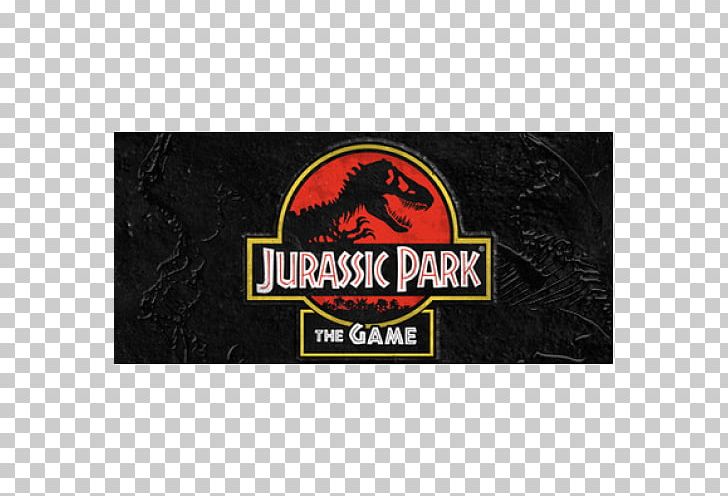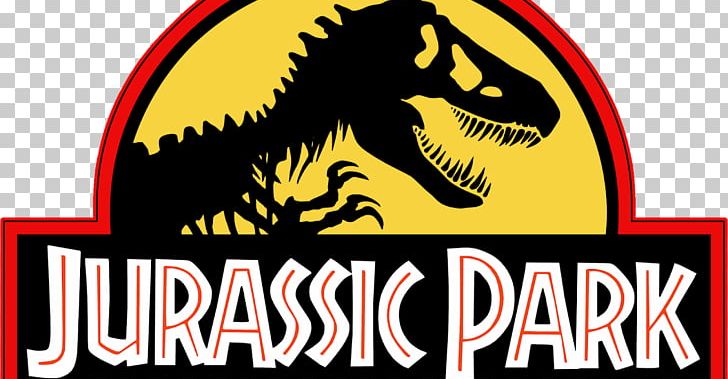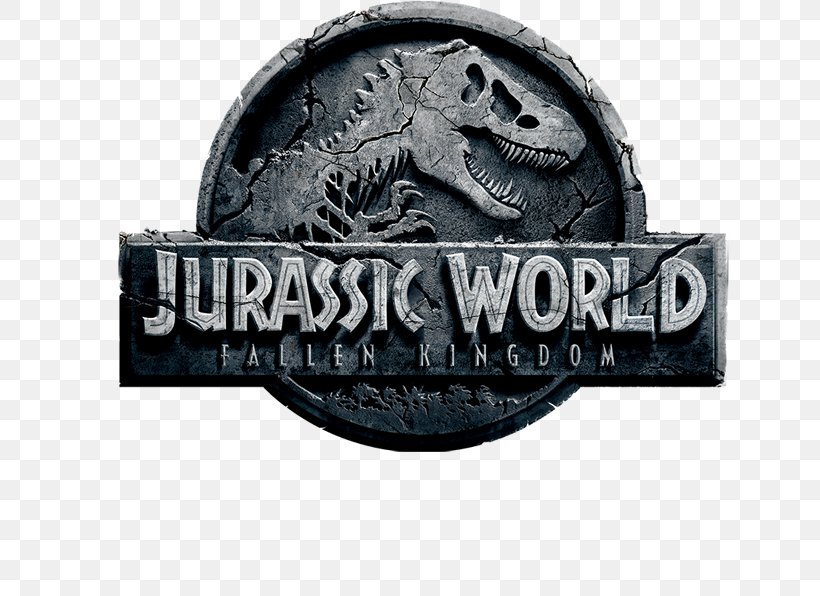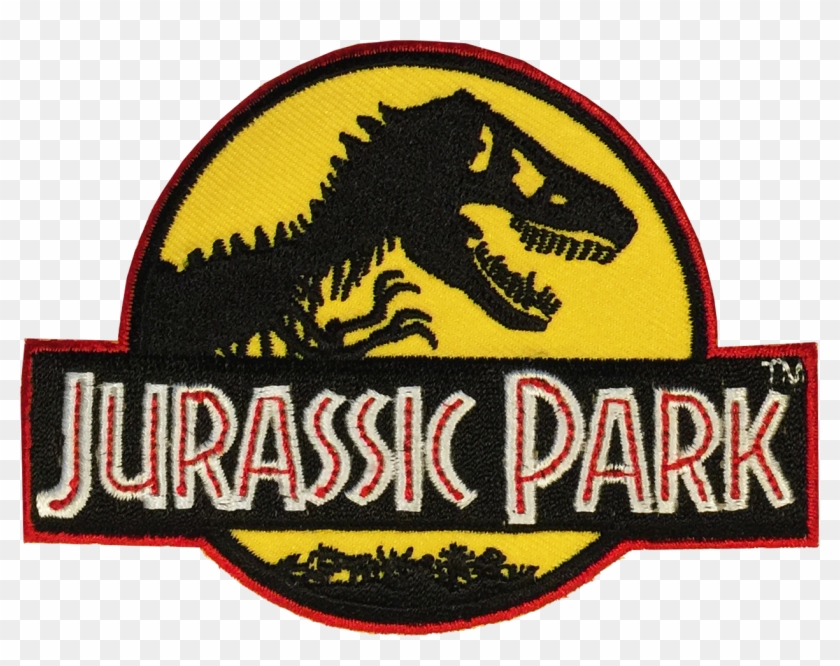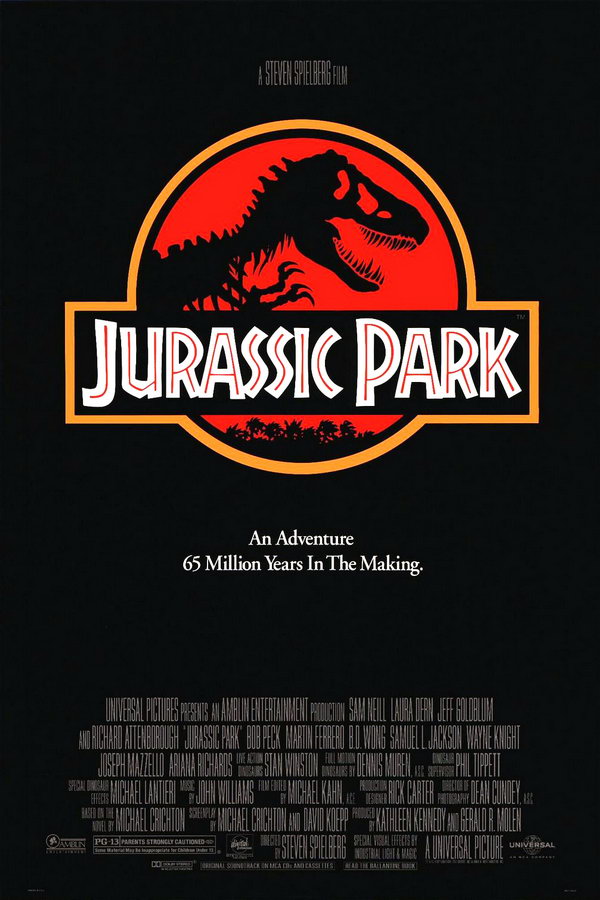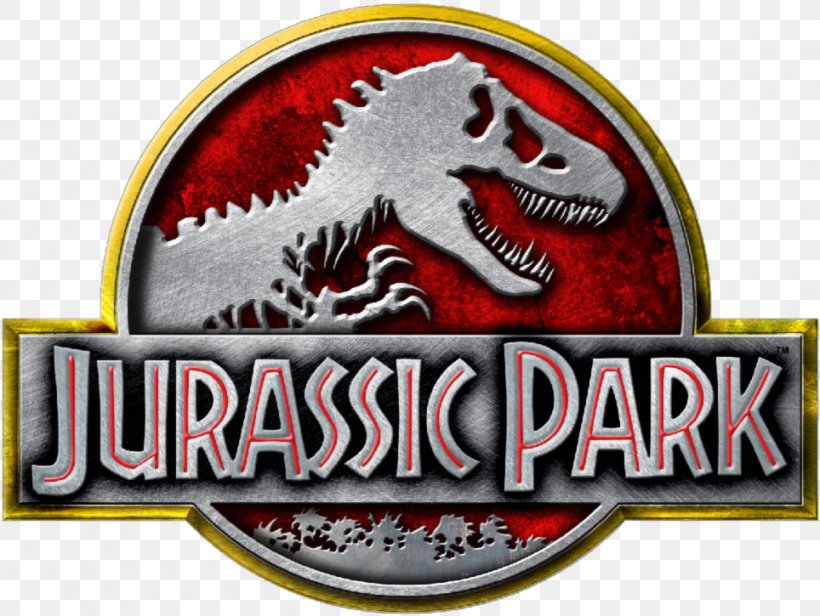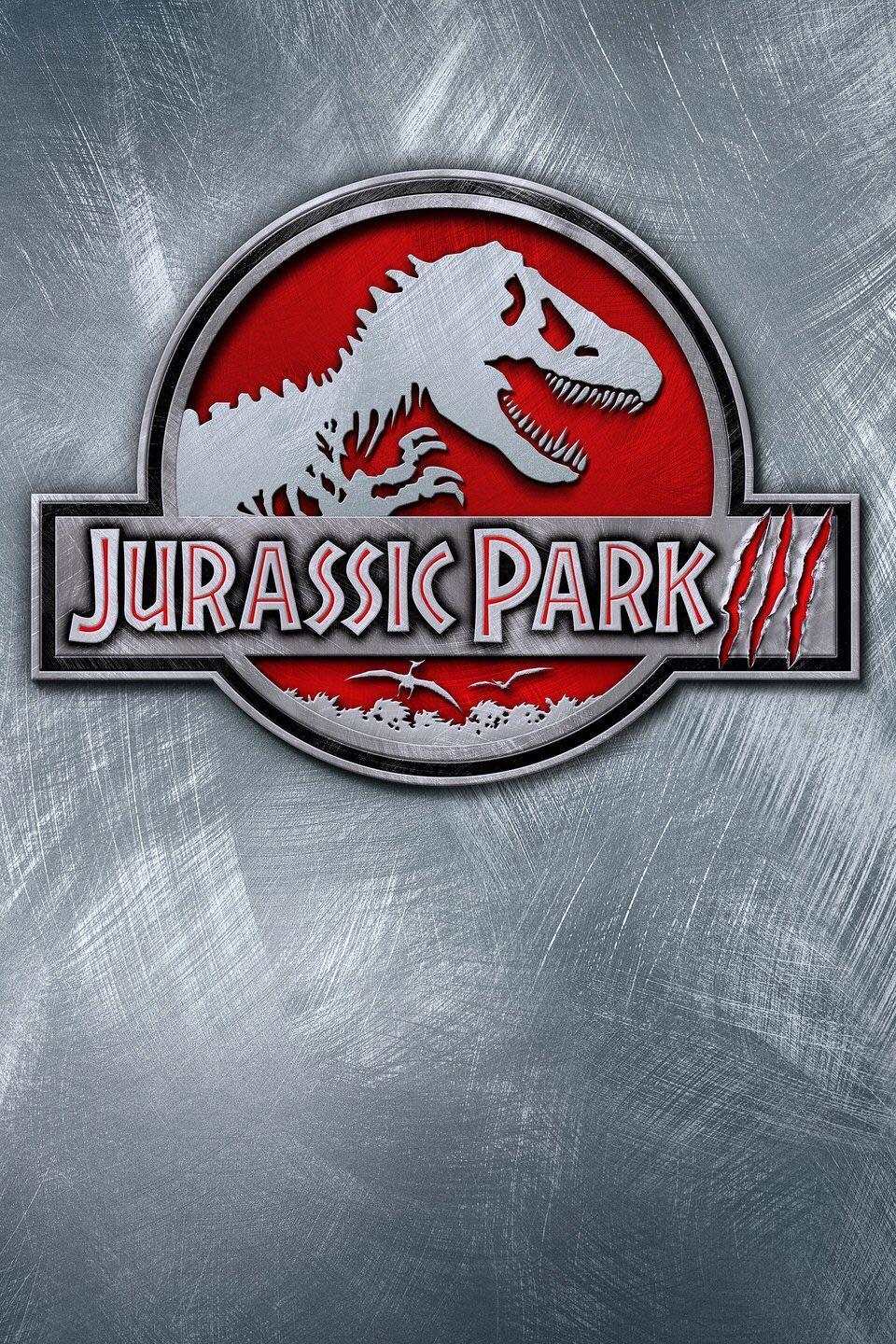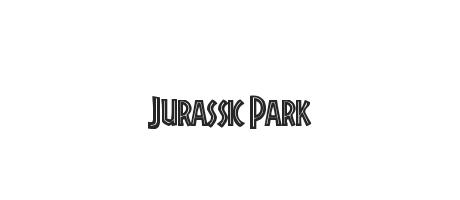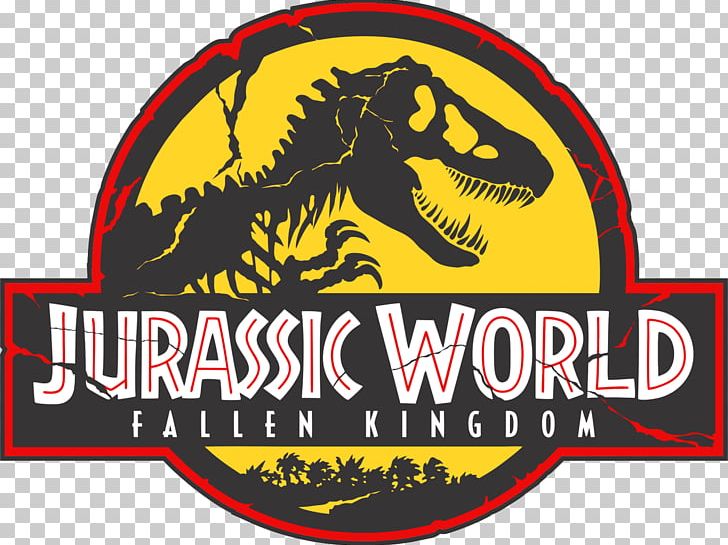
Jurassic Park Font is a font used for different movie posters Headings and places that need to be noticed. Newer Topic Older Topic. Looking for Jurassic Park fonts.
It earned massive acknowledgment after the movie was released. Font jurassic park dafont july 18 2020 january 4 2021 1990s fonts cool fonts custom fonts decorative fonts free fonts graffiti fonts jurassic world is a 2015 american science fiction. Download free jurassic park font jurassic park is an american science fiction film released in 1993 and directed by steven spielberg.
Jurassic park is the font used in the jurassic world movie. The jurassic park font has been downloaded 530883 times. Every font is free to download.
The font used for the logo of Jurassic Park an American fiction movie is the same font. Forum Font identification Back to the list. 45 out of 5 stars.
Download free jurassic park font jurassic park is an american science fiction film released in 1993 and directed by steven spielberg. Jurassic park font from 1001fonts free for commerical if in doubt you can go to this link for copyright font generator is for preview use only. Font details and information jurassic world 1 star 29 kb 1 font 500 downloads 21 the last thirty days free by the wondermaker.
Rainforest is an elevated small caps display font reminiscent of the jurassic park logo. Download free jurassic park font view its character map and generate text-based images or logos with jurassic park font online. Park Birthday Dinosaur Birthday Party Jurassic World Diy Vinyl Projects Jurrassic Park Jurassic Park Party Pretty Letters Imagination Station Alphabet.
Introducing Jurassic Park Font The lettering for the film title within the poster is very similar to a font named a Jurassic park designed via Jens r. Updated Jul 25 2019. The lettering for the film title in the poster is very similar to a font named Jurassic Park designed by Jens R.
This font resembles the lettering used for the Jurassic Park movie. Version 100 november 19 2014 initial release previous font. 1 downloads yesterday 2 the last seven days 21 the last thirty days 1 font.
It was founded by a typeface designer Jens R. About Jurassic Park Font. If you do not want to download and install the font but just like to create simple text logos using Jurassic Park Font just use the text generator below.